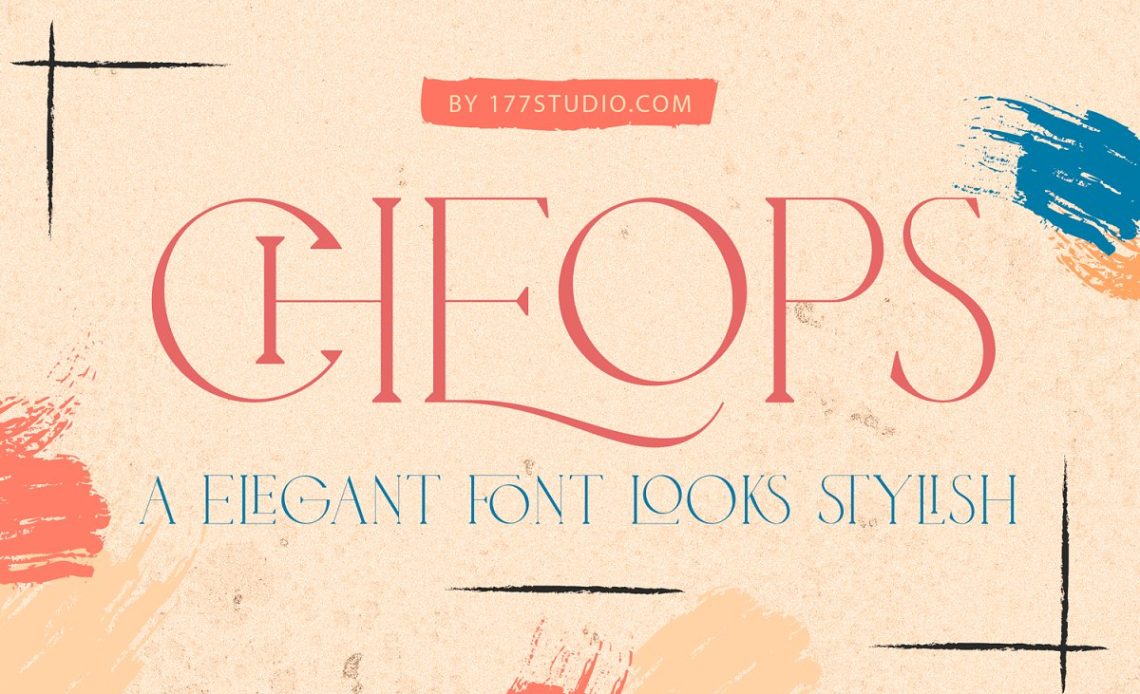
Looking for the perfect font to elevate your designs? Look no further than Cheops Elegant Font! This modern serif font, created by Cuong Truong, is perfect for those looking to create elegant and luxurious logos.
Cheops Elegant Font has a unique and charming character that is sure to catch the eye of your target audience. With a simple yet sophisticated design, this font is perfect for designs with a focus on elegance, luxury, romance, fashion, and classic royal themes.
To make your designs even more unique, Cheops Elegant Font comes with a variety of ligatures, including AC, AG, AO, AQ, AS, and many more. You'll also have access to a full set of uppercase and lowercase letters, special ligatures, numerals, punctuation, and accented characters.